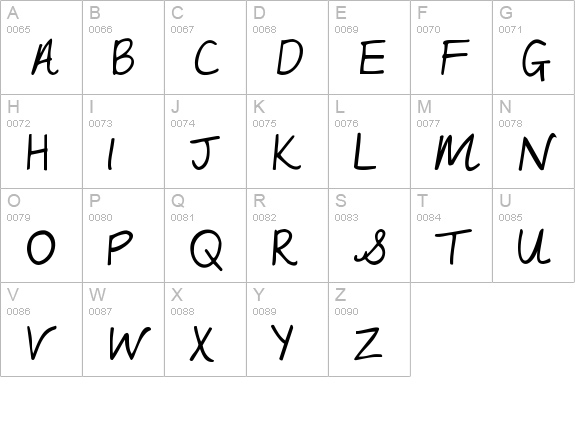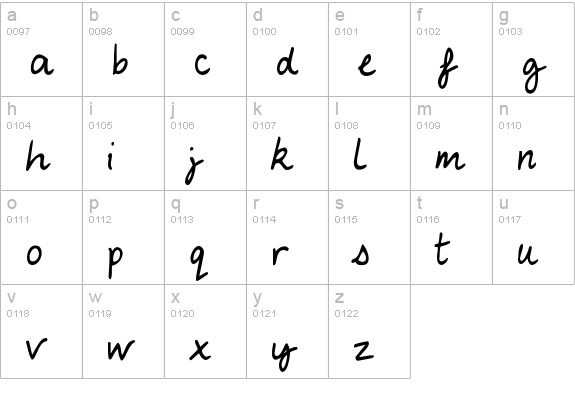
My Lucky Penny Font Details
Introducing My Lucky Penny, a whimsical and charming font that exudes a sense of nostalgia and playfulness. This delightful typeface is perfect for adding a touch of warmth and personality to your projects. With its rounded edges and quirky design, My Lucky Penny is sure to bring a smile to your audience's face. What makes My Lucky Penny even more special is that it is completely free to download. You can easily access this unique font at FontsMarket.com, where creativity knows no bounds. Whether you're working on a greeting card, poster, or branding project, My Lucky Penny will add a touch of magic and creativity to your designs. Embrace the luck and charm of My Lucky Penny font today and let your creativity shine!